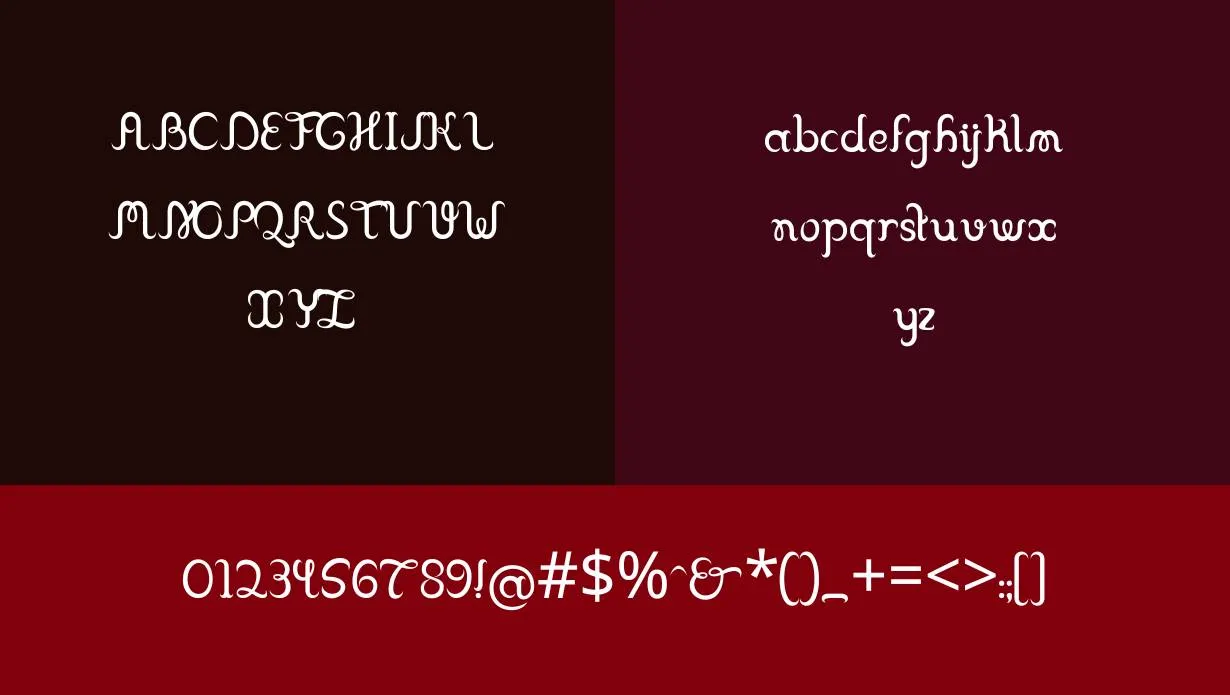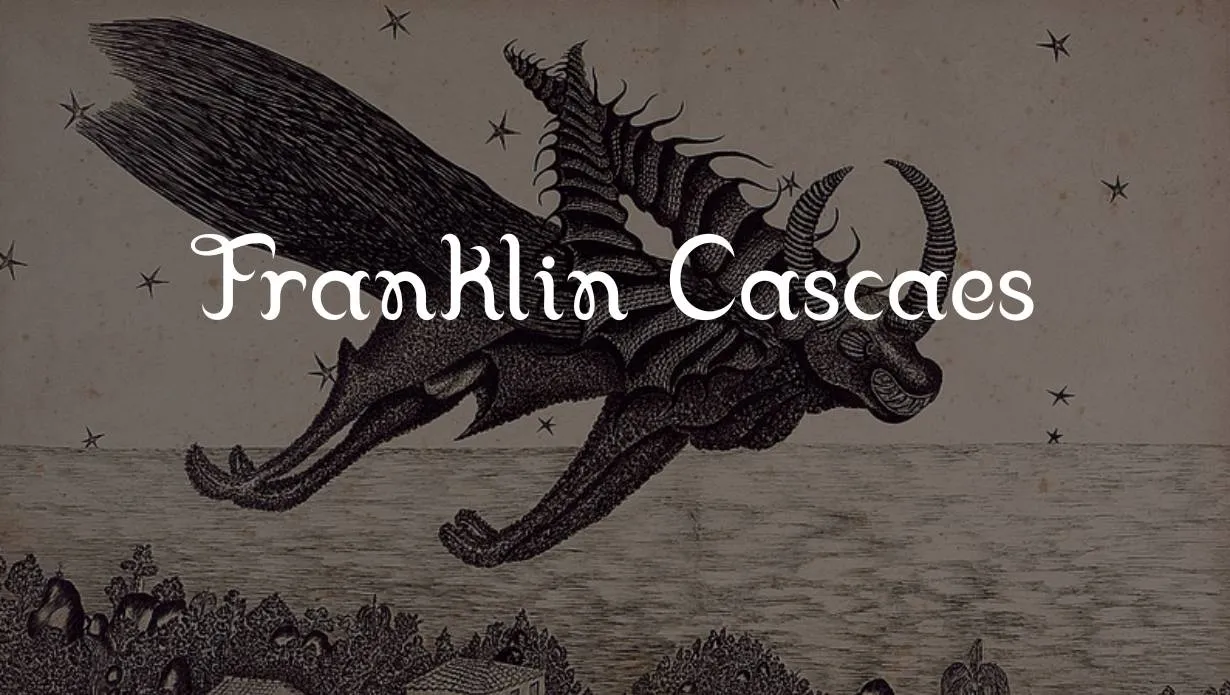
About Franklin Cascaes Font
Franklin Cascaes is a decorative, whimsical display typeface that features elegant, curving letterforms with a playful, ornate appearance. The font draws visual interest with its curly, stylized characters, making it suitable for creative and artistic design work such as invitations, greeting cards, posters, and branding. Its light, fanciful aesthetic adds a handcrafted charm to projects that require expressive typography. Franklin Cascaes balances artistic flair with legibility, working well in digital and print applications where a unique decorative style is desired.